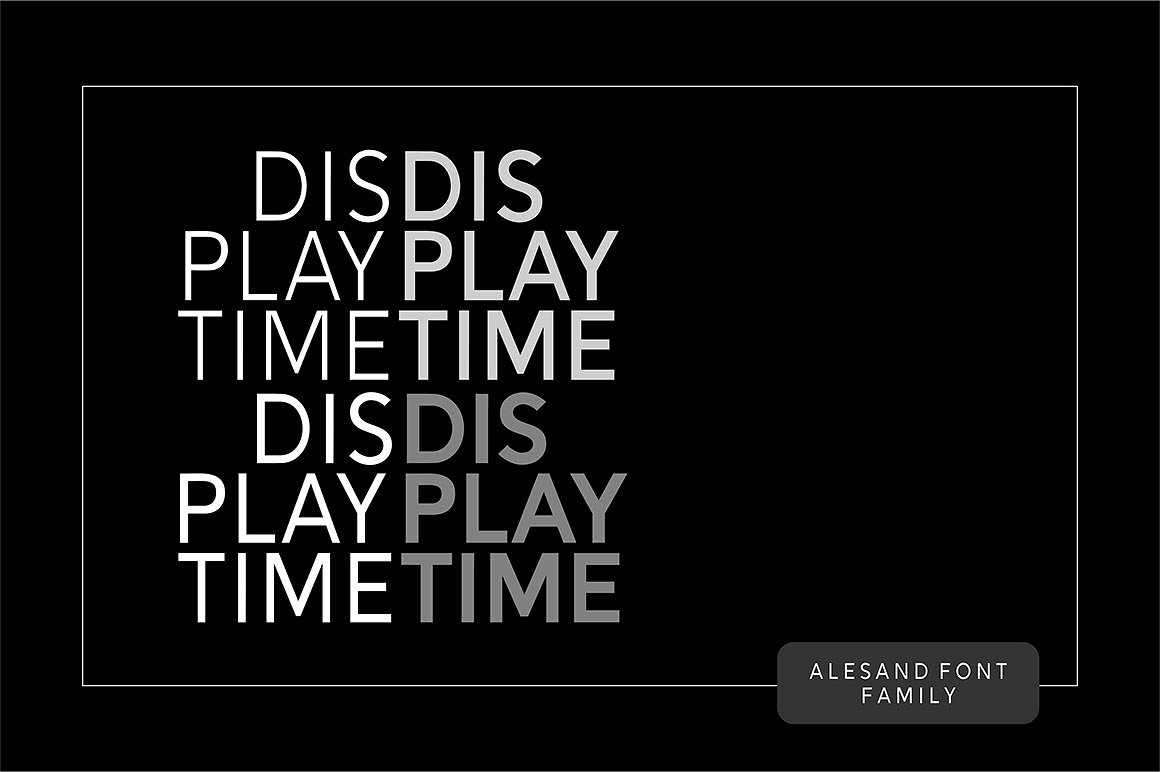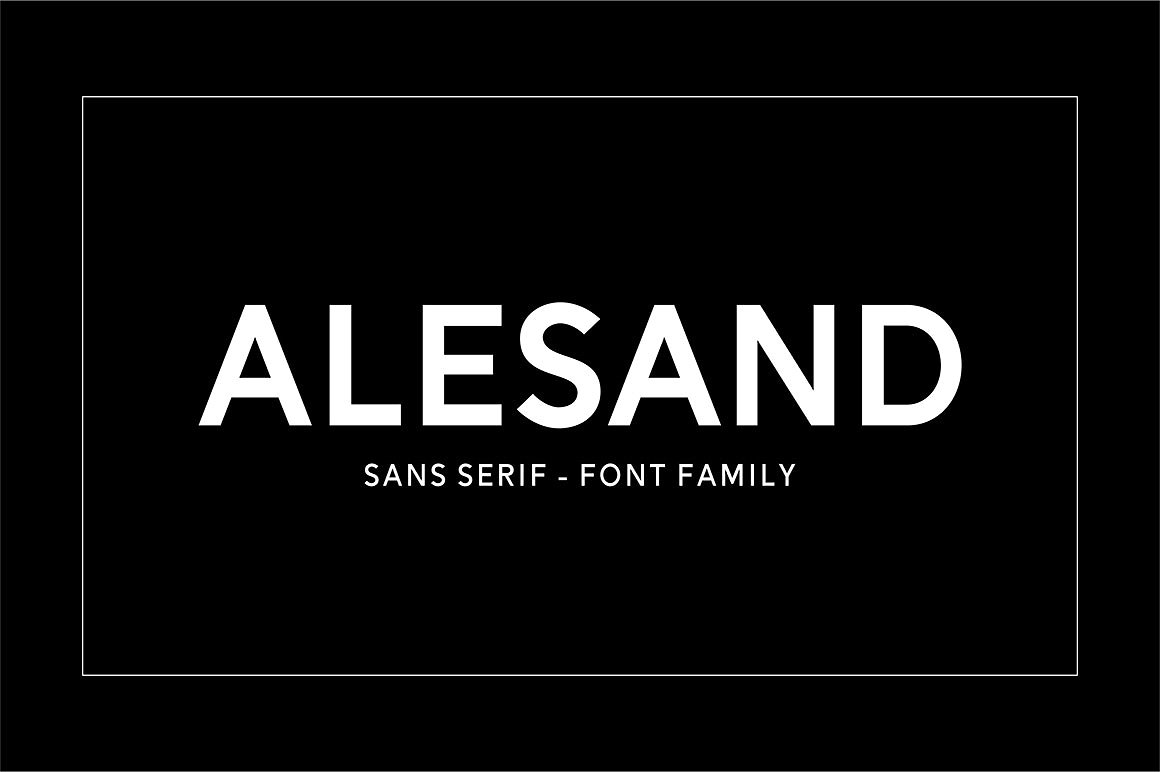
Alesand Font Family
Alesand A new contemporary font family designed with balance and versatility. The addition with outline and extrude font styles, makes it very simple to coat these fonts together perfectly. Simply duplicate the “Extra Bold” layer and change the setting to “Outline, Extrude”, and the type will be automatically offset for you!